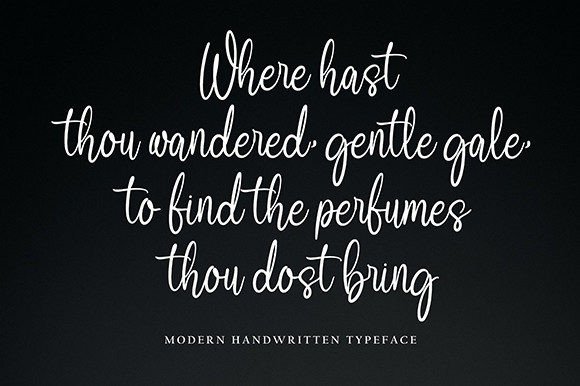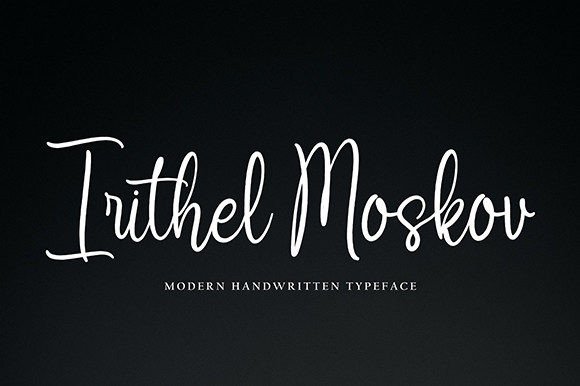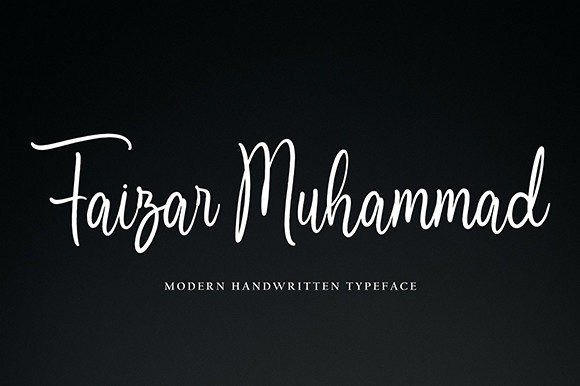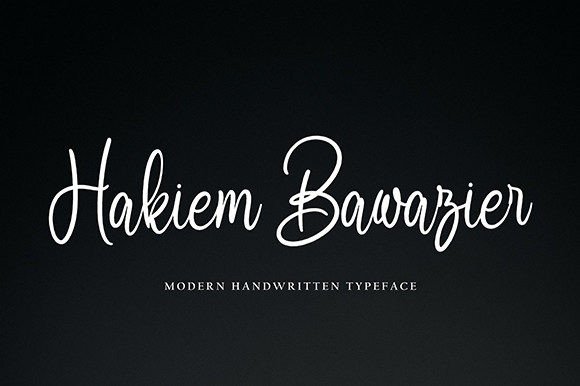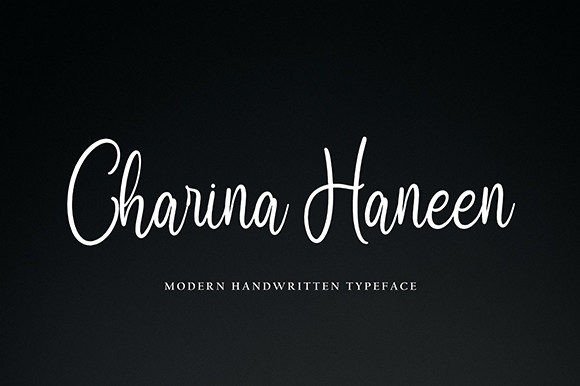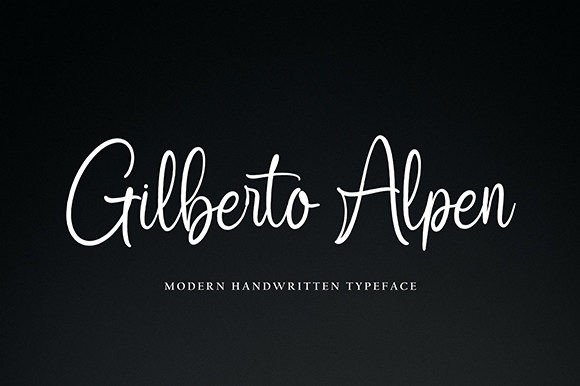
Discover the Elegance of Anter Ego Font: Elevate Your Designs with Sophistication
Are you on the hunt for a font that exudes elegance, sophistication, and versatility? Look no further than the Anter Ego Font. This delicate and elegant handwritten font is making waves in the design community, and for good reason. Its distinct and well-balanced letters make it a masterpiece that can elevate any design project from ordinary to extraordinary.
The Characteristics of Anter Ego Font
Anter Ego Font boasts a range of characteristics that set it apart from other fonts. Its delicate and elegant nature makes it perfect for designs that require a touch of sophistication. The font’s handwritten style gives it a personal and organic feel, making it ideal for projects that require a human touch.
One of the standout features of Anter Ego Font is its well-balanced letters. Each letter has been carefully crafted to ensure that it flows seamlessly into the next, creating a beautiful and harmonious visual effect. This balance makes the font incredibly versatile, allowing it to be used in a wide range of design applications.
The Benefits of Using Anter Ego Font
So, why should you choose Anter Ego Font for your next design project? For starters, its versatility makes it perfect for a wide range of applications, from branding and packaging to wedding invitations and social media graphics.
Another benefit of using Anter Ego Font is its ability to add a touch of elegance and sophistication to any design. Whether you’re working on a luxury brand or a personal project, this font is sure to make a statement.
In addition to its aesthetic appeal, Anter Ego Font is also incredibly easy to use. Its clean and simple design makes it easy to read and understand, even at small sizes.
How to Use Anter Ego Font in Your Designs
So, how can you use Anter Ego Font to elevate your designs? Here are a few ideas to get you started:
- Branding and Packaging: Use Anter Ego Font to create stunning brand identities and packaging designs that exude elegance and sophistication.
- Wedding Invitations: Add a touch of romance and whimsy to your wedding invitations with Anter Ego Font.
- Social Media Graphics: Use Anter Ego Font to create eye-catching social media graphics that stand out from the crowd.
- Stationery: Create beautiful stationery sets, including notecards, journals, and letters, with Anter Ego Font.
Tips for Pairing Anter Ego Font with Other Fonts
When it comes to pairing Anter Ego Font with other fonts, there are a few things to keep in mind. Here are a few tips to help you create stunning font combinations:
- Pair with a bold font: Pair Anter Ego Font with a bold, sans-serif font to create a striking contrast.
- Match with a similar script font: Pair Anter Ego Font with another script font that has similar characteristics, such as a similar letter style or texture.
- Use with a minimalist font: Pair Anter Ego Font with a minimalist font, such as a simple sans-serif font, to create a clean and elegant look.
In conclusion, Anter Ego Font is a delicate and elegant handwritten font that is sure to elevate your designs to the next level. Its distinct and well-balanced letters make it a masterpiece that can add a touch of sophistication and elegance to any design project.
Whether you’re a designer, crafter, or DIY enthusiast, Anter Ego Font is a must-have font that is sure to inspire your creativity and take your designs to new heights. So why wait? Fall in love with Anter Ego Font and start creating spectacular designs today!